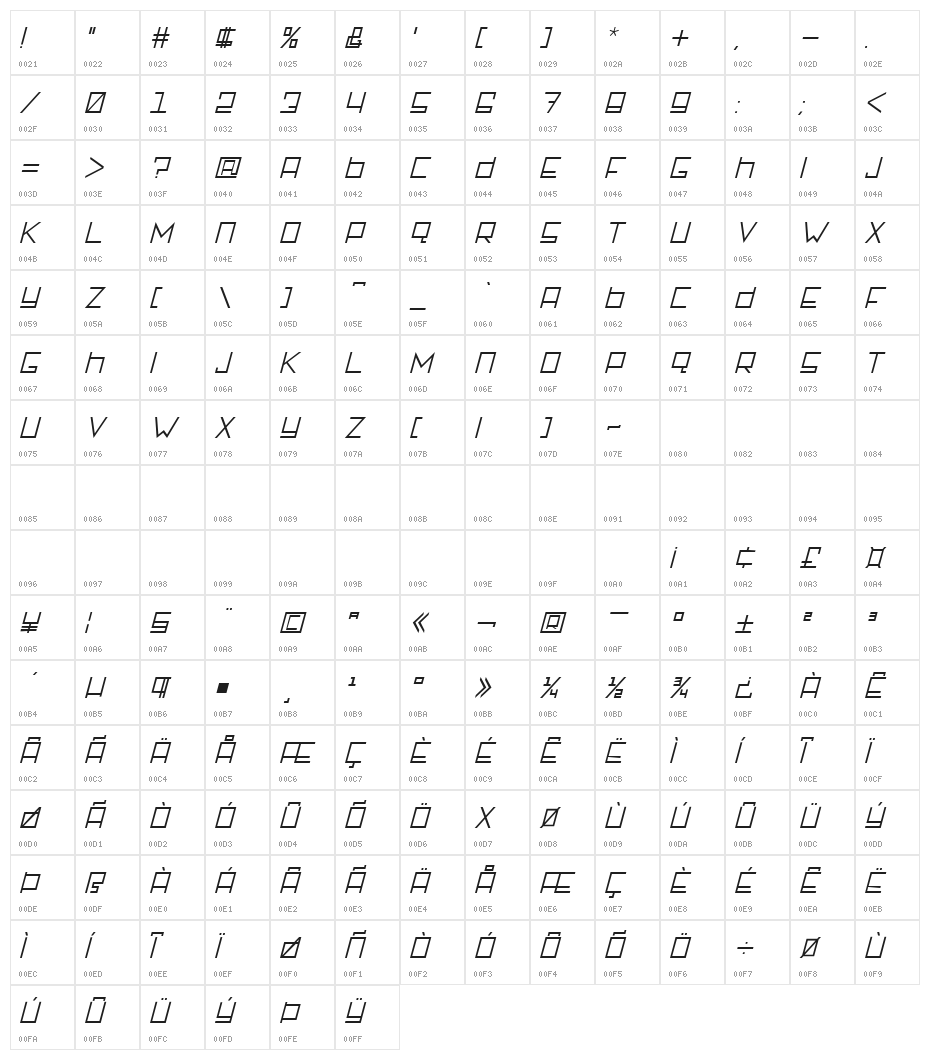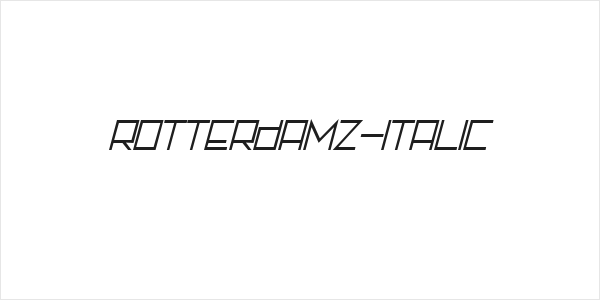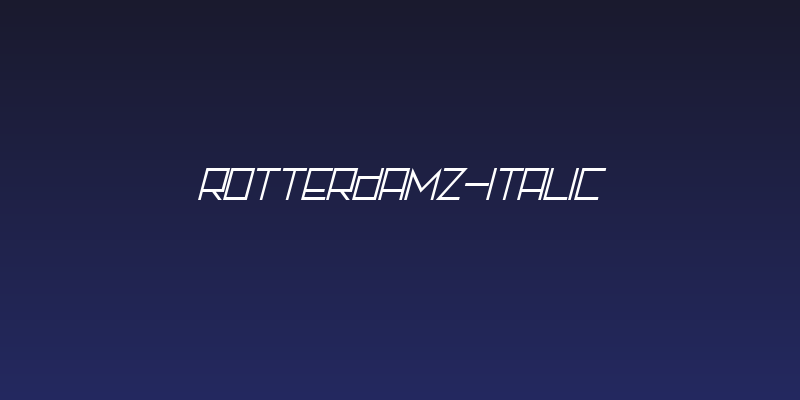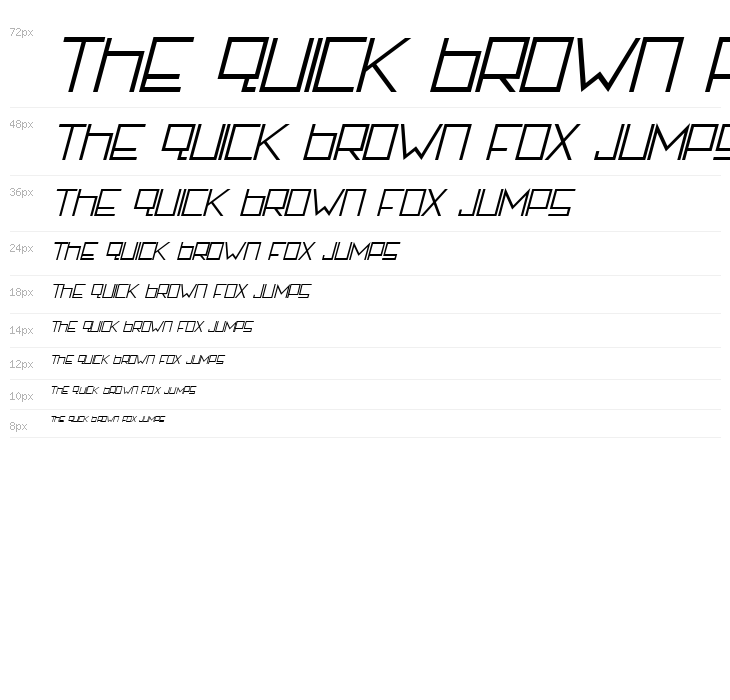
Rotterdamz-Italic Font
Rotterdamz-Italic Description
This font features a modern, geometric design with sharp angles and a distinct italic slant, giving it a dynamic and forward-moving appearance. The characters are constructed with clean, straight lines and consistent stroke widths, creating a uniform and cohesive look. The uppercase and lowercase letters maintain a similar structure, emphasizing the font's sleek and futuristic style. Numbers and special characters are designed to match the angular aesthetic, ensuring a harmonious overall presentation. The font's unique style makes it suitable for projects that require a contemporary and edgy feel.
| Proposed Projects | Ideal for branding, advertising, and editorial design projects that aim to convey a modern and innovative image. |